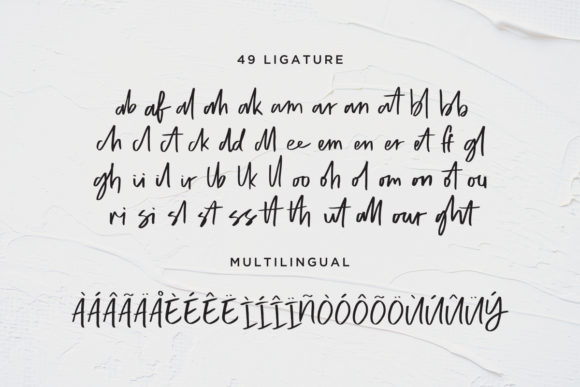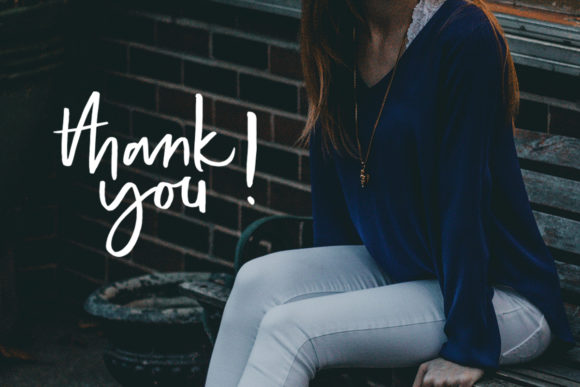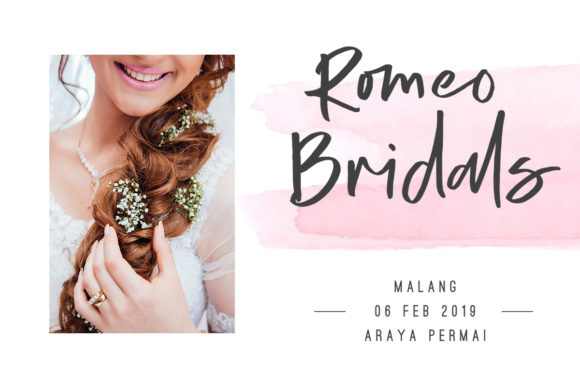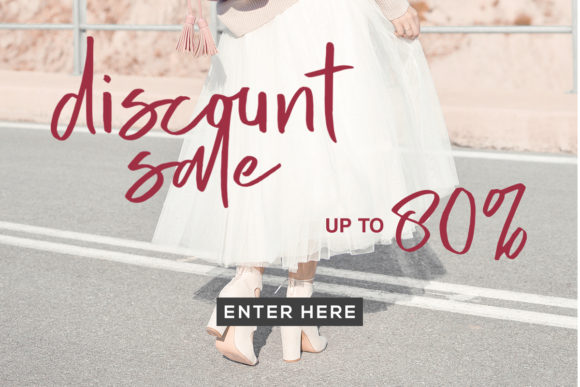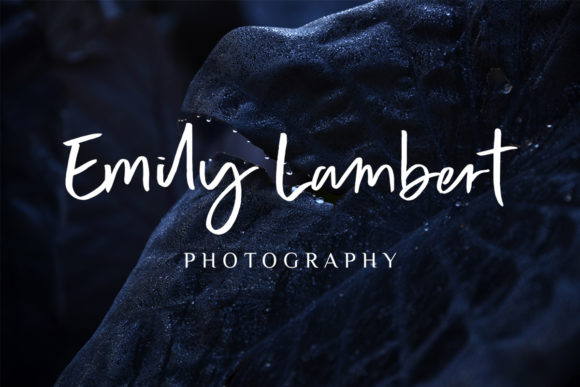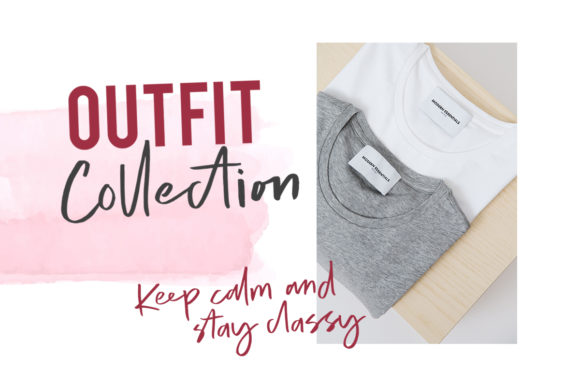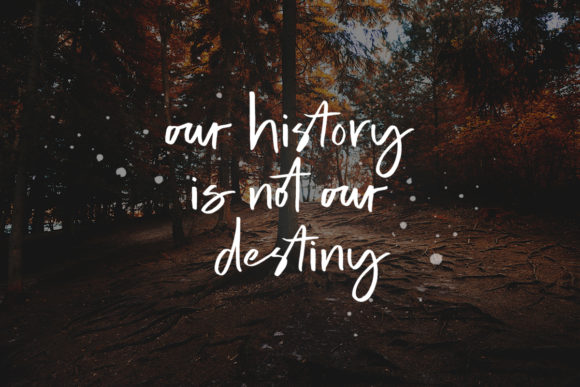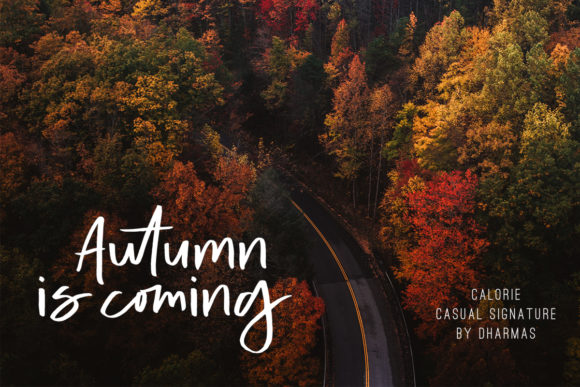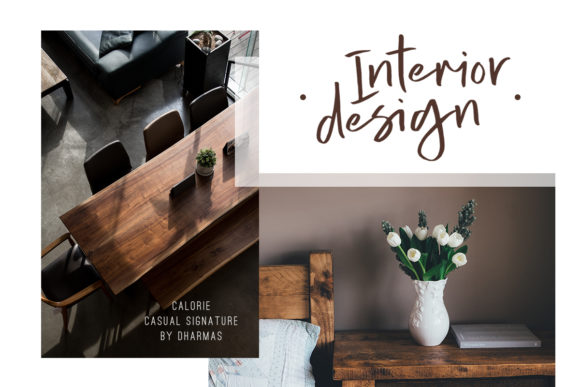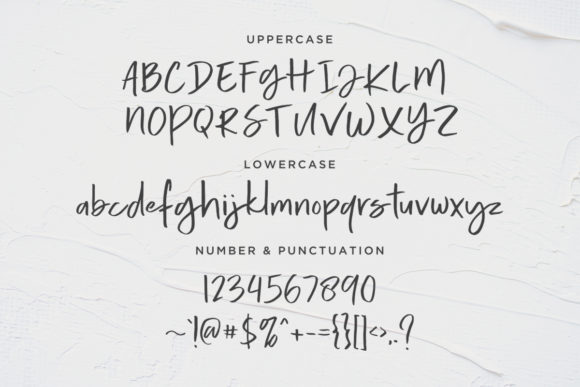
Calorie Font
About Calorie Font
The Calorie is a rustic, textured script that works great for logos, branding, quotes, social media, and even lettered wrapping paper!